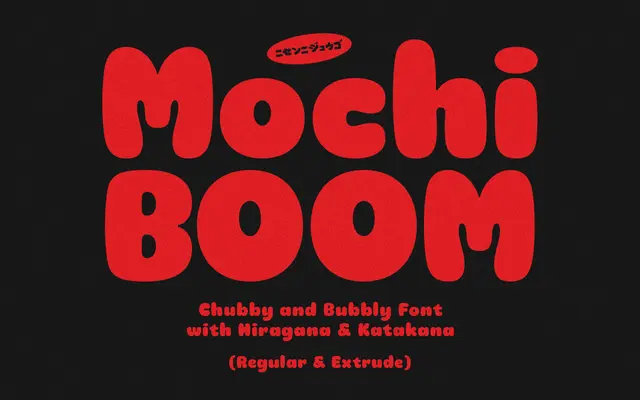
Mochi Boom
Prioritype · 2025
A bubbly rounded display font with Latin and partial Japanese script support, aimed at food packaging, social media and children's branding.
Soft, inflated letterforms take direct cues from the texture of mochi, giving the typeface a rounded, friendly quality suited to food brands, cafes and merchandise packaging. Two subfamilies are included: the standard cut and an extruded variant for added dimensionality. Latin letters are joined by Hiragana and Katakana, though Youon combined characters are not supported.
Soft, inflated letterforms with rounded terminals place this firmly in the bubble/rounded display category, designed for decorative headline use rather than text setting.